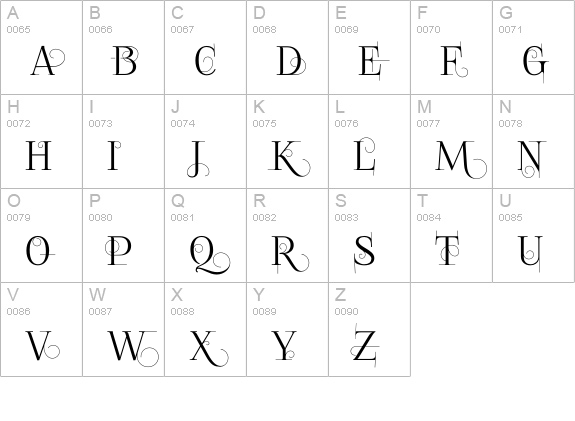
FoglihtenNo04 Font Details
FoglihtenNo04 font is a stunning display typeface that effortlessly captures attention with its elegant and intricate design. This font is perfect for adding a touch of sophistication to any project, whether it be for branding, advertising, or editorial purposes. With its beautifully crafted letterforms and delicate details, FoglihtenNo04 font exudes a sense of timeless charm. Each character is meticulously crafted with precision and care, resulting in a truly unique and eye-catching typeface. What makes FoglihtenNo04 font even more appealing is that it is freely available to download at FontsMarket.com. This means that designers and creatives can easily access and utilize this extraordinary font in their projects without any cost. Whether you're a professional graphic designer or a hobbyist looking to add a touch of elegance to your personal creations, FoglihtenNo04 font is the perfect choice. Its versatility allows it to be used in a wide range of applications, from logos and headlines to invitations and packaging designs. So why wait? Take advantage of the opportunity to download FoglihtenNo04 font for free at FontsMarket.com and unleash your creativity with this captivating and sophisticated typeface.